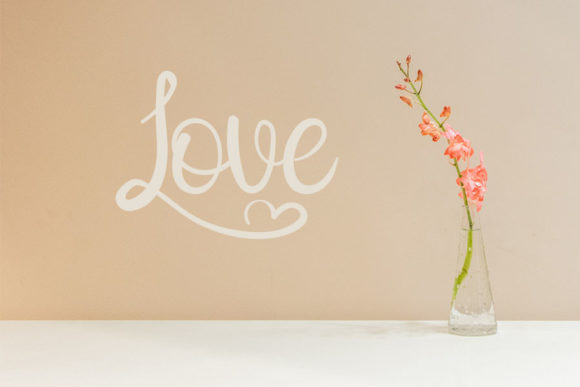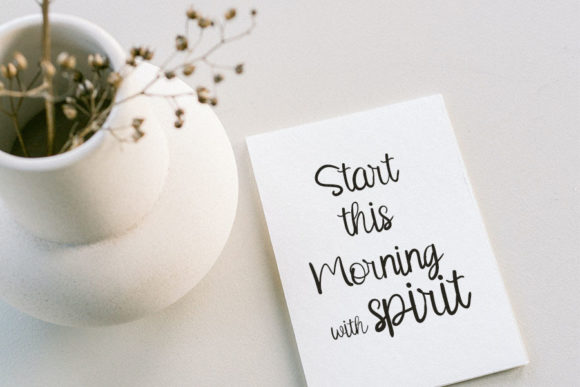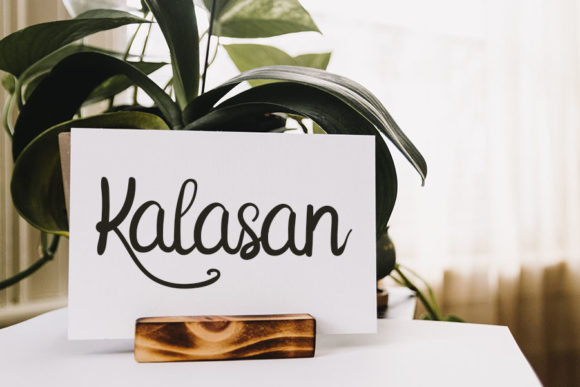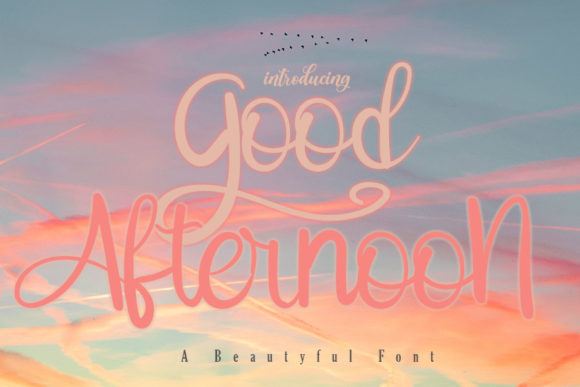
Introducing Good Afternoon Font: Elevate Your Designs with Elegance
Are you on the hunt for a font that exudes sophistication, elegance, and a touch of modern flair? Look no further than the Good Afternoon Font. This exquisite handwritten font is masterfully designed to capture the hearts of designers and crafters alike, making it a true favorite in the world of typography.
The Perfect Blend of Classic and Contemporary
Good Afternoon Font strikes the perfect balance between classy calligraphic influences and a contemporary feel. Its unique blend of traditional and modern elements makes it an ideal choice for a wide range of design projects, from wedding invitations and branding materials to digital content and craft projects.
With Good Afternoon Font, you can add a touch of sophistication to your designs while maintaining a fresh and modern look. Its elegant strokes, precise lettering, and flowing script make it perfect for creating beautiful text-based designs that are sure to impress.
Key Features of Good Afternoon Font
• Exquisite Handwritten Design: Good Afternoon Font boasts a beautiful, handwritten design that is both elegant and refined.
• Classy Calligraphic Influences: The font’s calligraphic roots give it a sophisticated and luxurious feel.
• Contemporary and Fresh: Despite its classic influences, Good Afternoon Font feels modern and fresh, making it perfect for a wide range of design applications.
• Easy to Read: The font’s clear and precise lettering ensures that your text is easy to read, even at smaller sizes.
• Highly Versatile: Good Afternoon Font can be used for a variety of design projects, from print materials to digital content.
Why Choose Good Afternoon Font?
With so many fonts available, why choose Good Afternoon Font? Here are just a few reasons why designers and crafters are falling in love with this beautiful font:
• Unique and Eye-Catching: Good Afternoon Font is sure to grab attention and set your designs apart from the crowd.
• Time-Saving: With Good Afternoon Font, you can create stunning text-based designs in a fraction of the time it would take to create them from scratch.
Using Good Afternoon Font in Your Designs
Good Afternoon Font is incredibly easy to use and can be incorporated into your designs in a variety of ways. Here are a few ideas to get you started:
• Wedding Invitations: Add a touch of elegance to your wedding invitations and save-the-date cards with Good Afternoon Font.
• Branding Materials: Use Good Afternoon Font to create stunning logos, business cards, and letterheads that reflect your brand’s personality.
• Digital Content: Add a touch of sophistication to your blog posts, social media graphics, and email newsletters with Good Afternoon Font.
• Craft Projects: Use Good Afternoon Font to create beautiful handmade cards, scrapbook pages, and other craft projects.
In conclusion, Good Afternoon Font is a truly exceptional handwritten font that is sure to become a favorite among designers and crafters. Its unique blend of classic and contemporary elements makes it perfect for a wide range of design projects, from wedding invitations and branding materials to digital content and craft projects. With its exquisite design, ease of use, and high versatility, Good Afternoon Font is an excellent choice for anyone looking to elevate their designs to the highest levels.